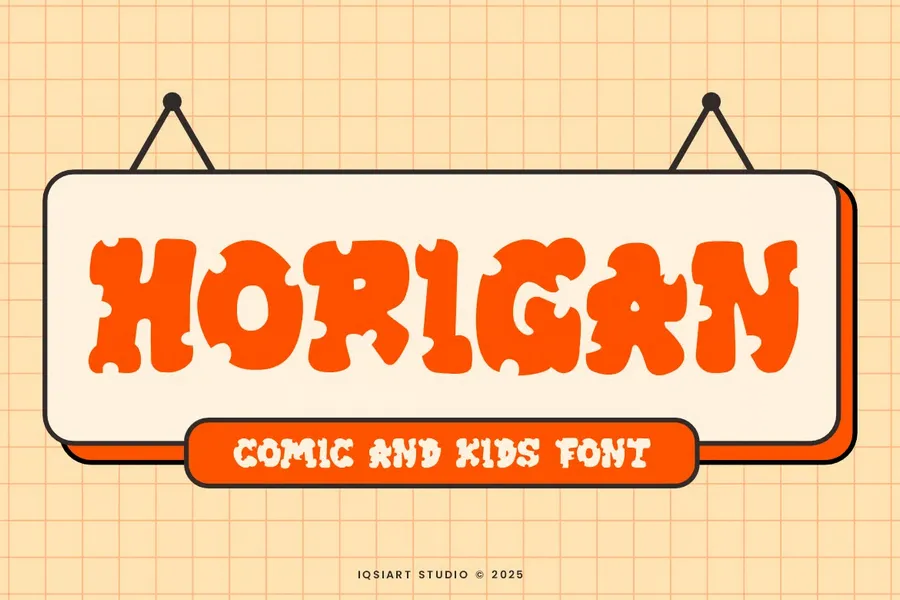
Horigan – Comic Font
Horigan Font is a best and authentic display font. This font can be used for your various needs. We provide various themes and font styles. visit our profile to get a wide variety of themes and different font styles you need.